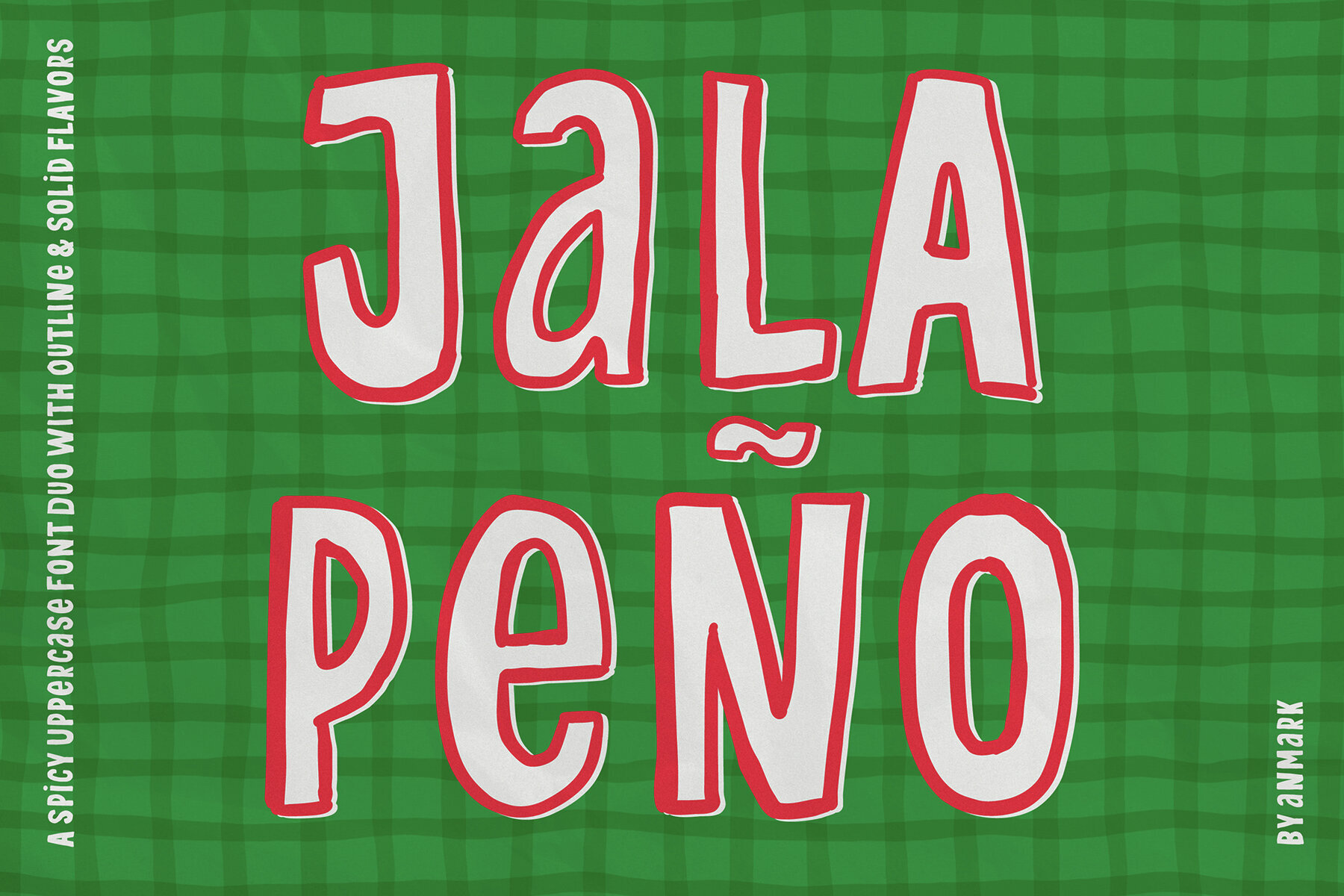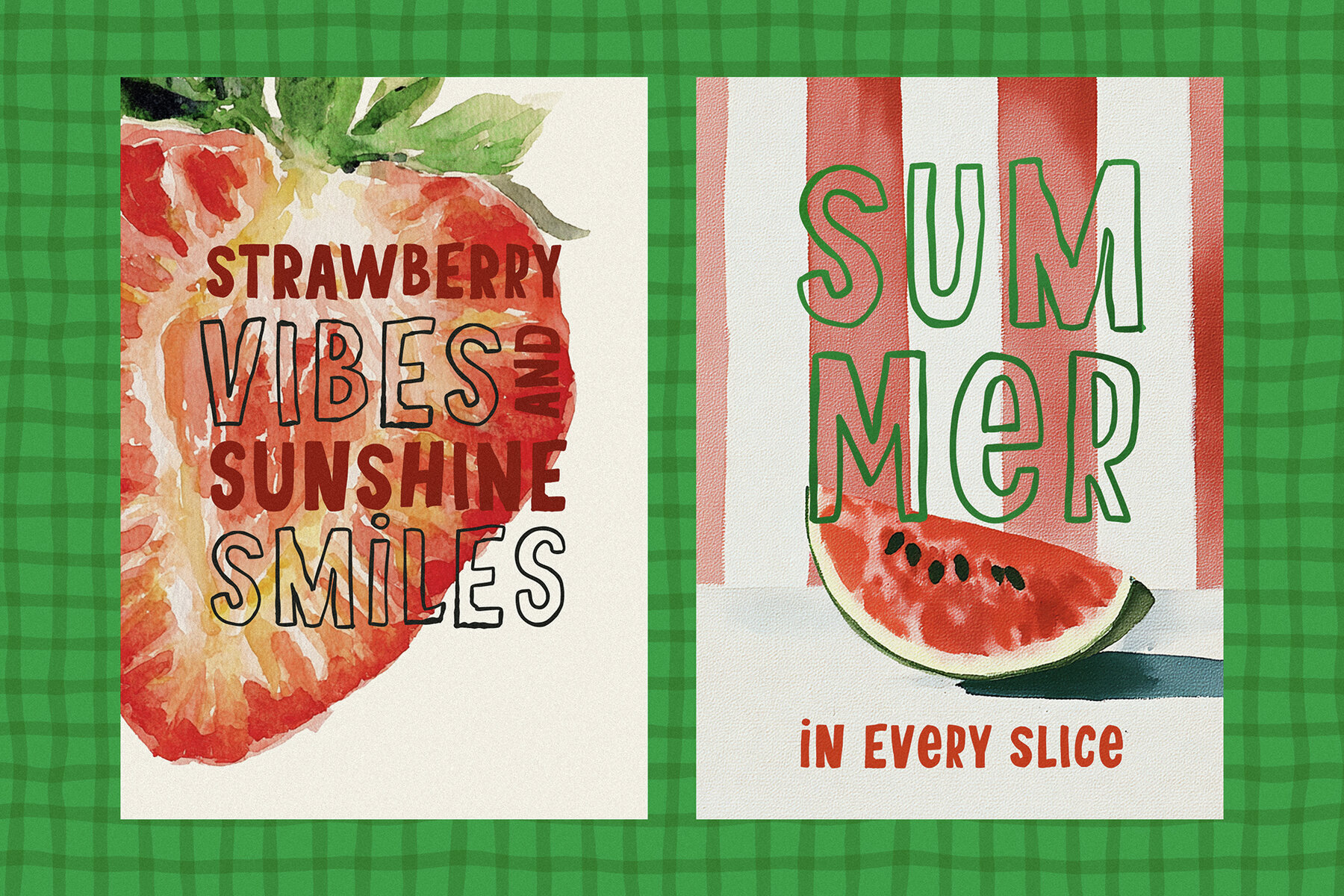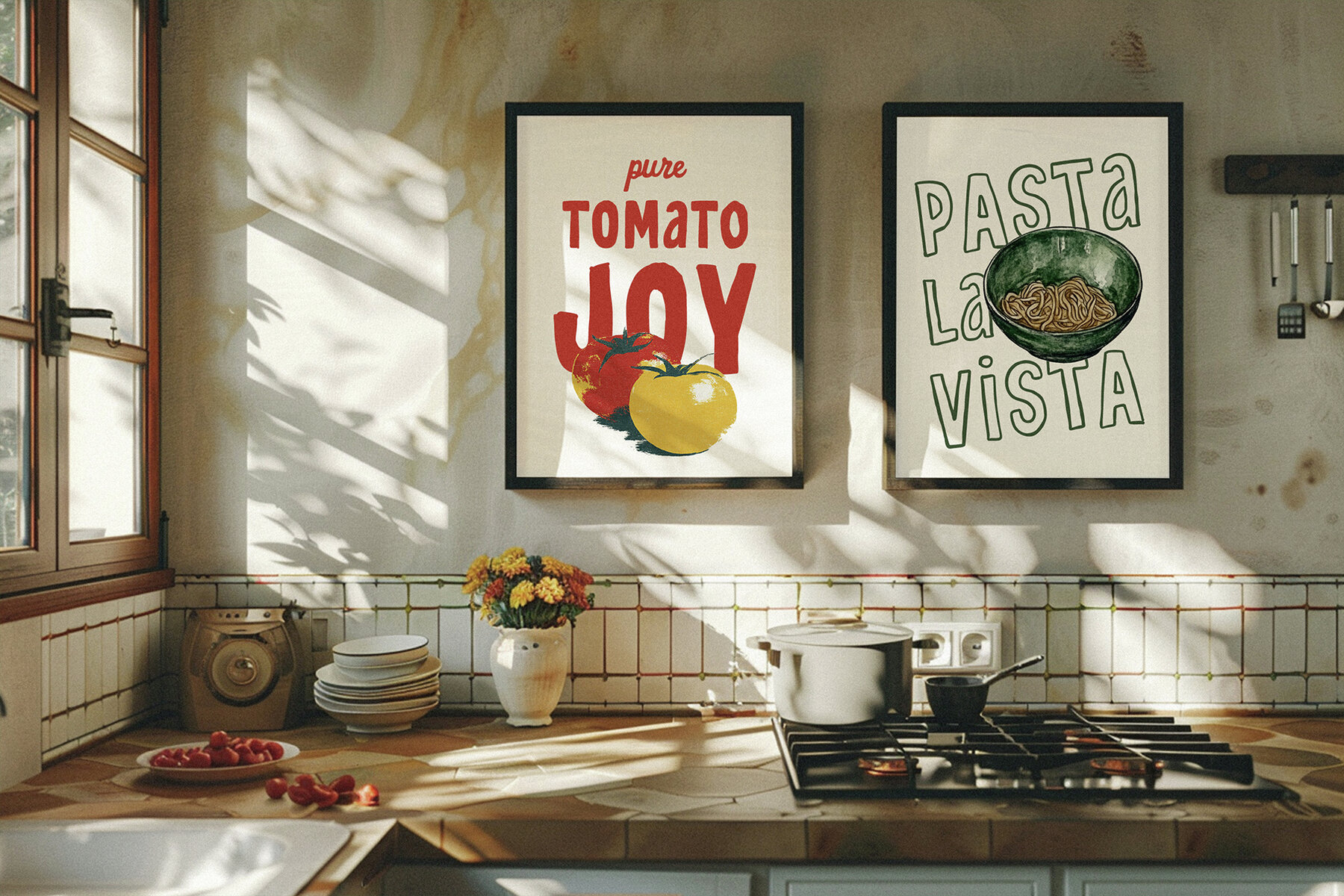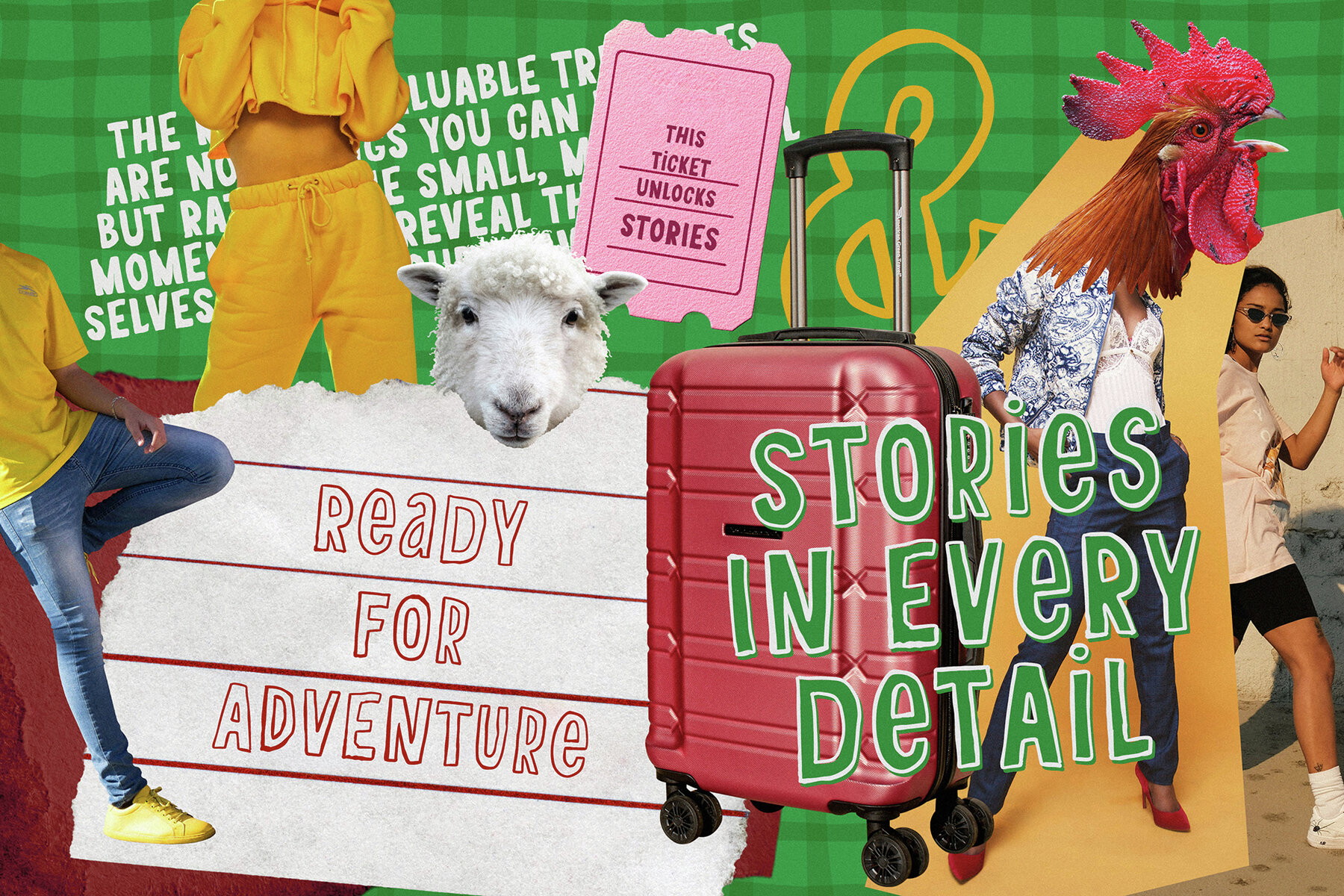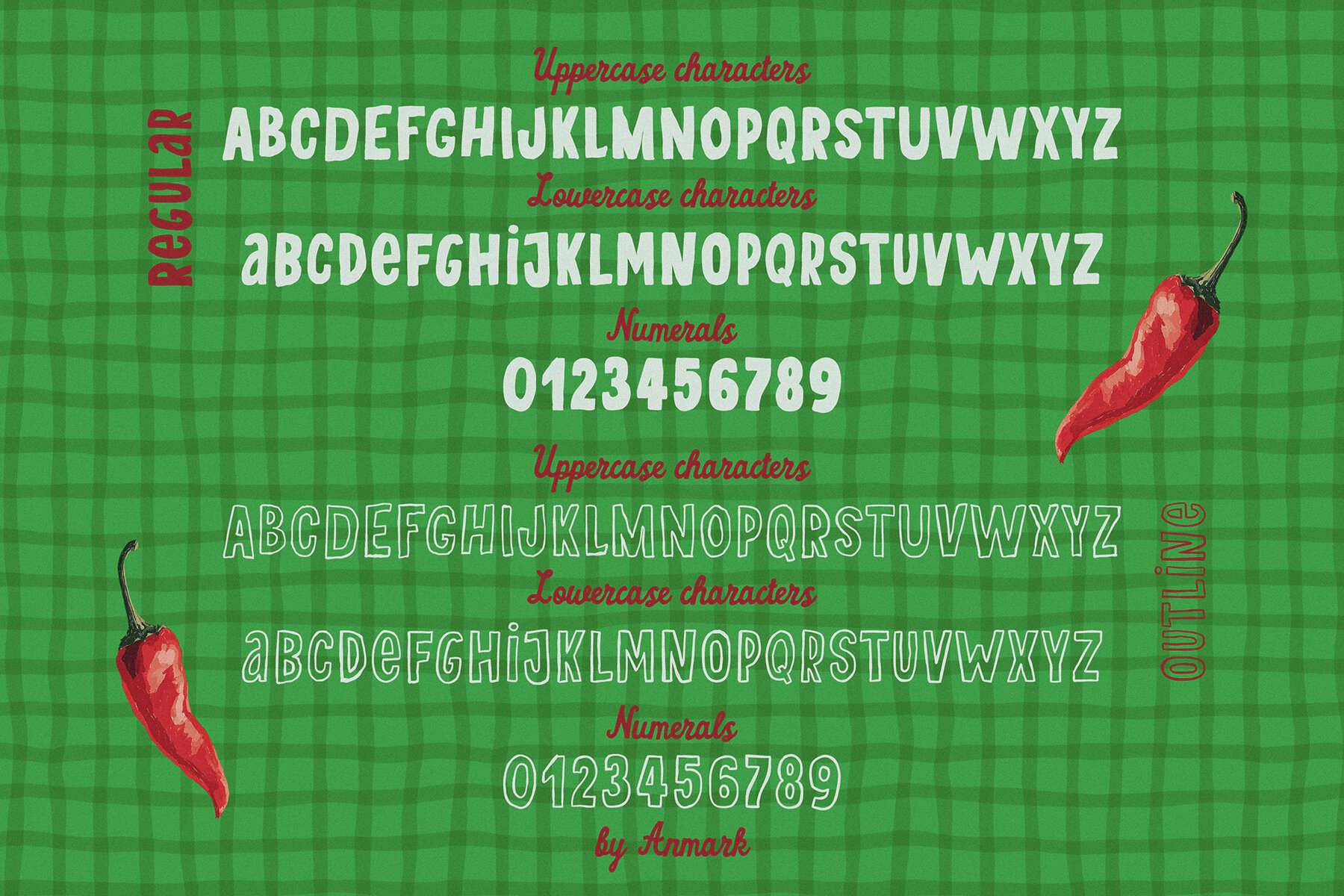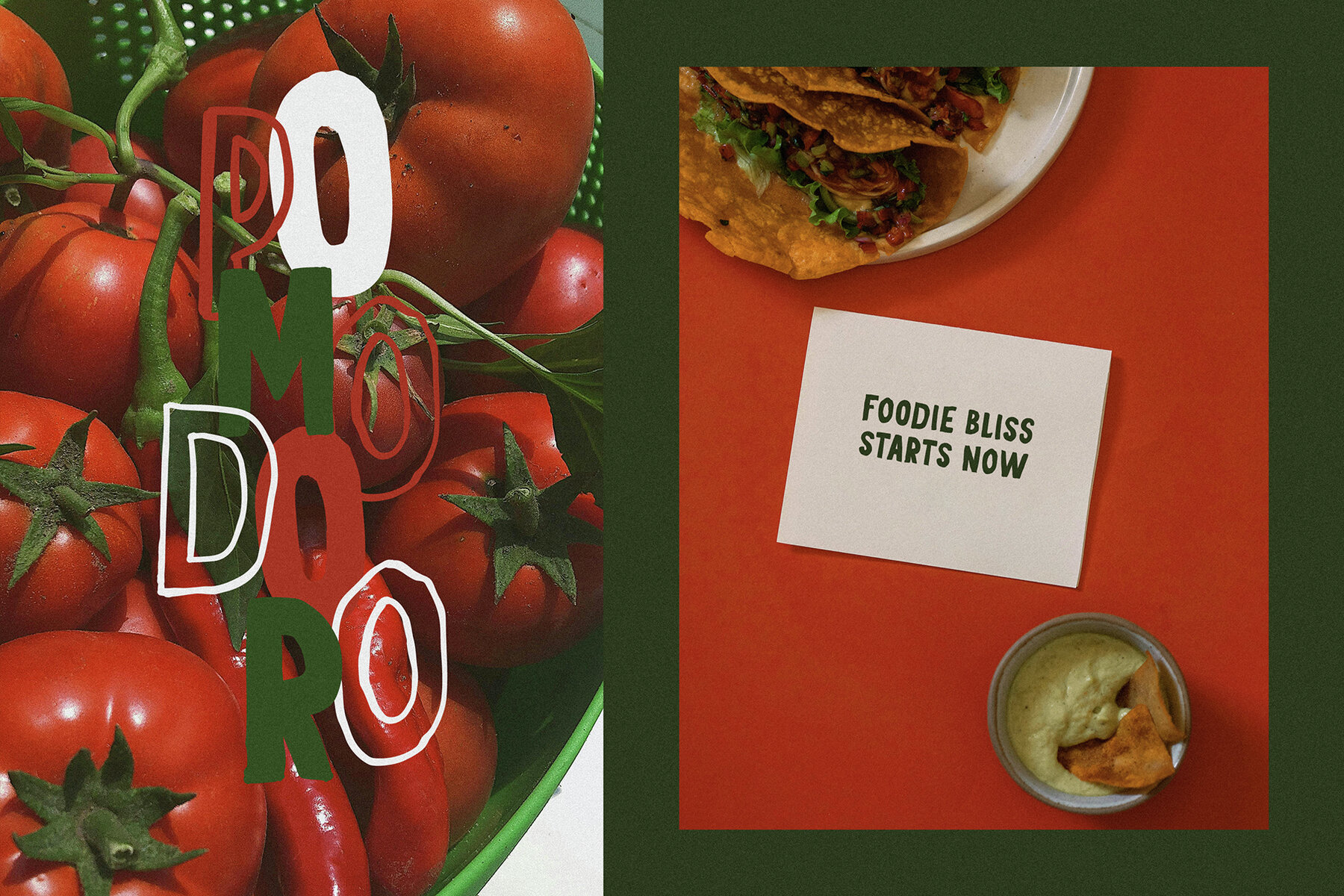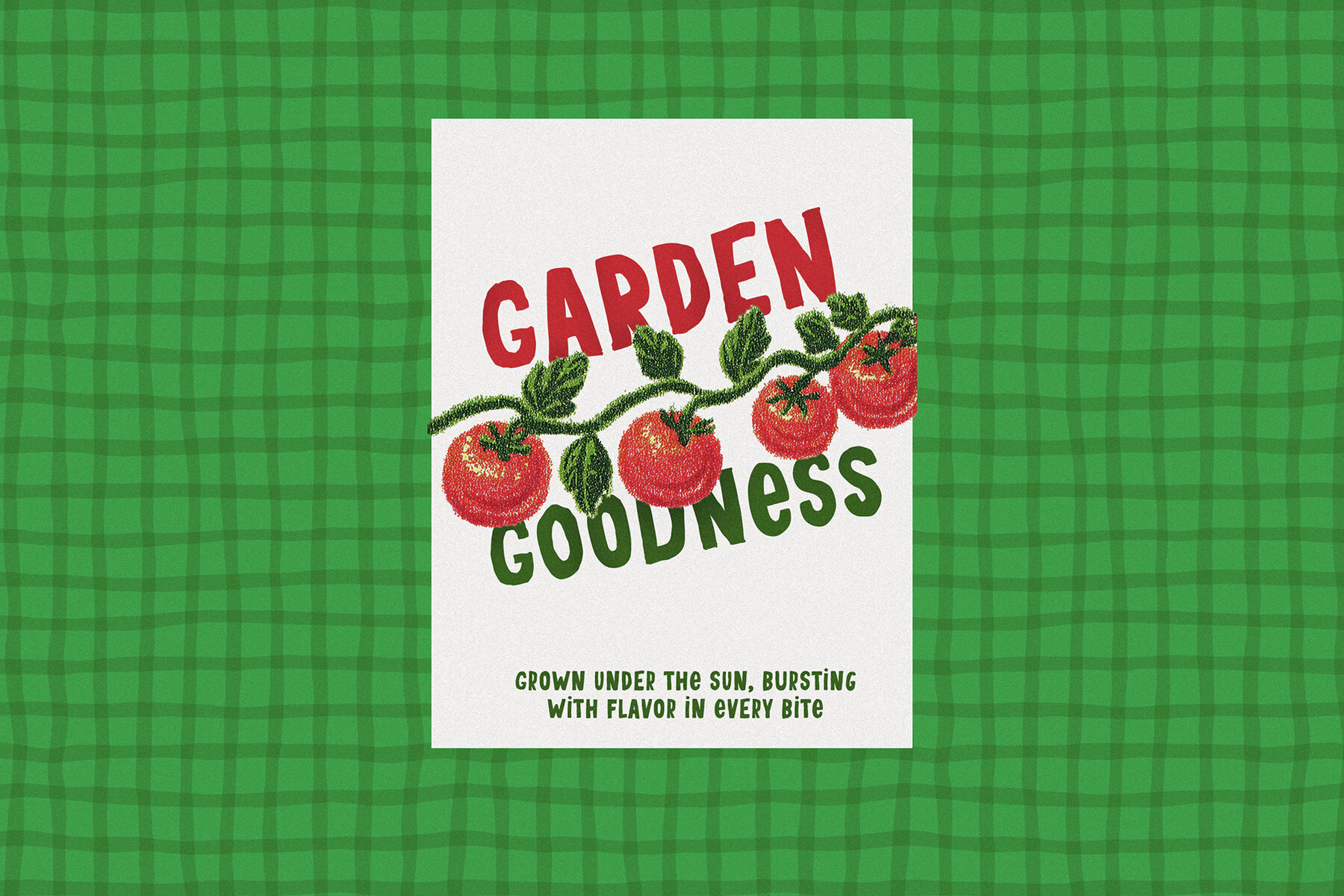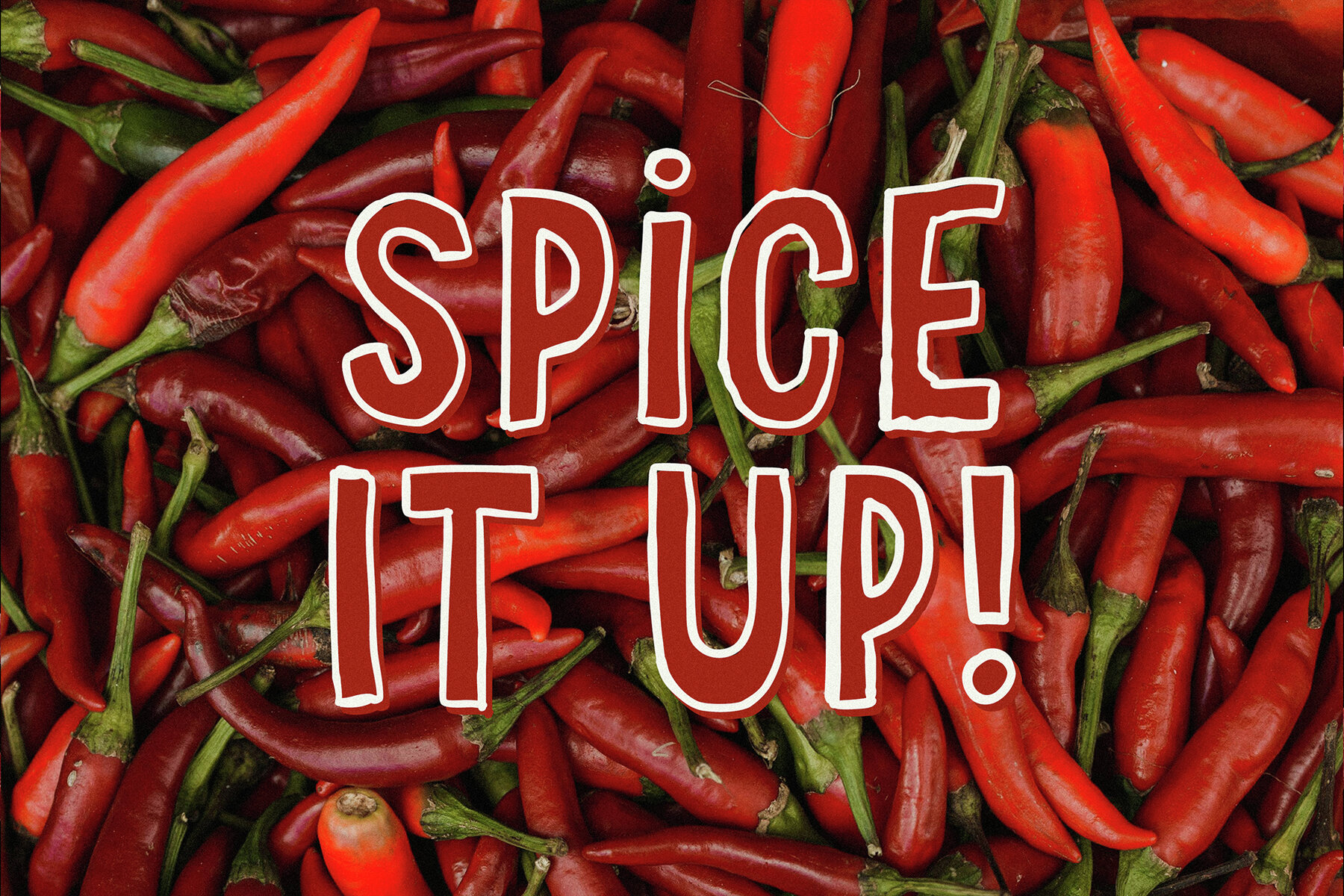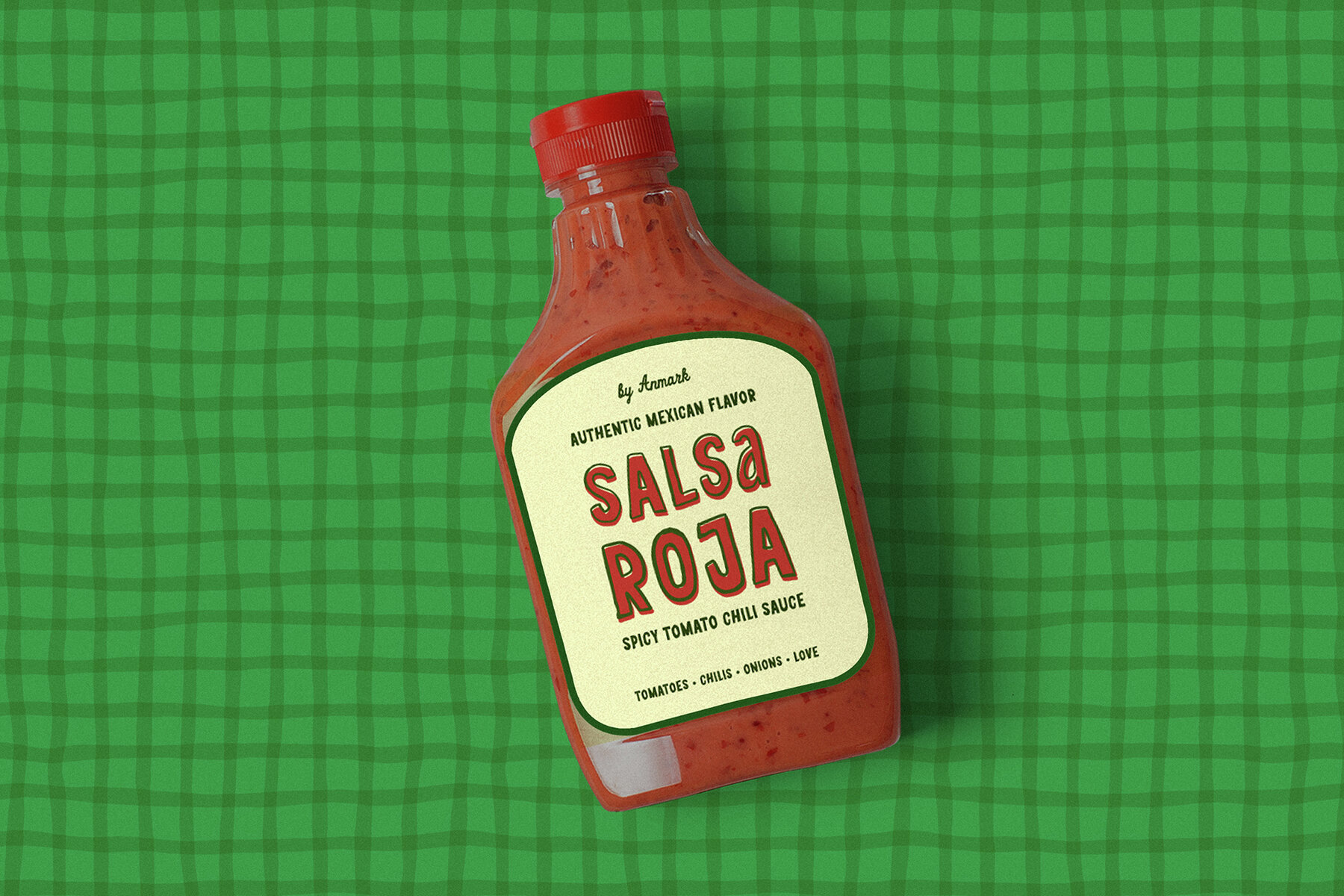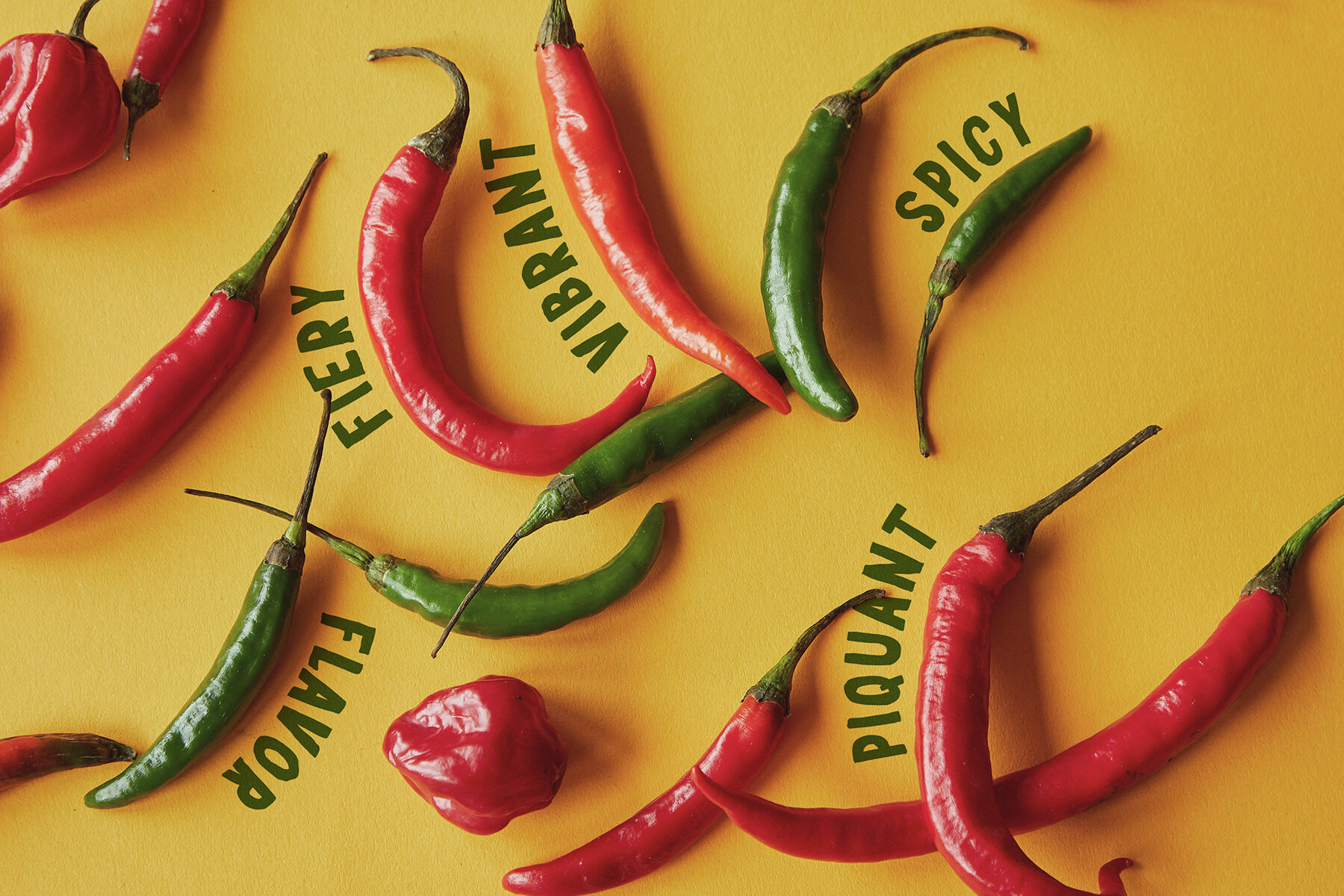
Jalapeno Spicy Font
Jalapeno Regular
Jalapeno Outline
Infuse your designs with boldness and character using Jalapeño, a striking all-caps handwritten font duo designed to invigorate your projects. With its distinctive flair and vibrant energy, Jalapeño is ideally suited for endeavors that demand bold expression and creativity. Featuring two complementary styles—Regular and Outline—this font duo seamlessly combines dynamic elements to produce captivating titles, logos, packaging, and social media graphics. Its playful and textured design emulates the essence of a handwritten note, accentuated with warmth and a touch of excitement. Features: Whether applied to food, fashion, or playful design projects, Jalapeño delivers an engaging and spirited typography experience.Jalapeño: Spicy All Caps Font Duo